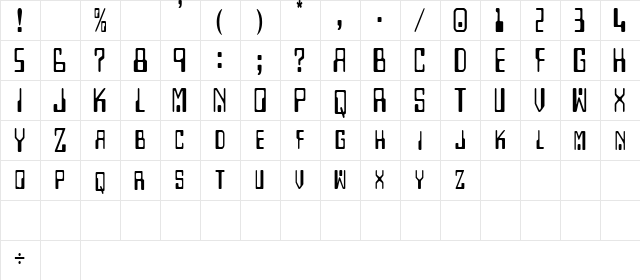
DigitalMachineCondensed Regular
Design Context for DigitalMachineCondensed Typeface
DigitalMachineCondensed channels digital-age aesthetics through its sharp, structured letterforms — ideal for brands that want to signal innovation. Its narrow stance lets it pack a punch even in space-constrained designs.
Pro Tip: Try DigitalMachineCondensed with generous letter-spacing in UI labels and navigation — the geometric forms benefit from room to breathe.